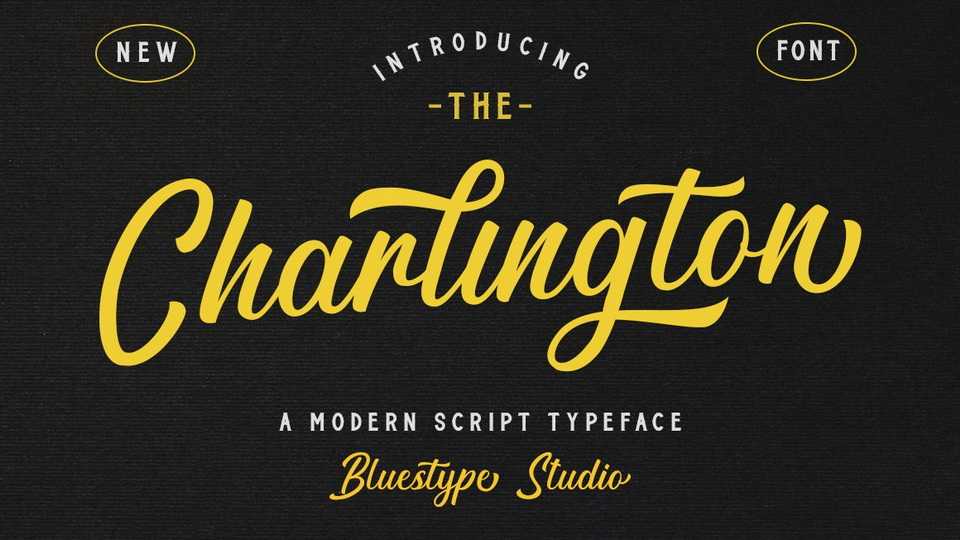
Download Charlington font, a modern calligraphy script with a beautiful and cool curves. Charlington font is suitable for t-shirt designs, logotype, branding, quotes, social media, watermarks, clothing, YouTube videos.